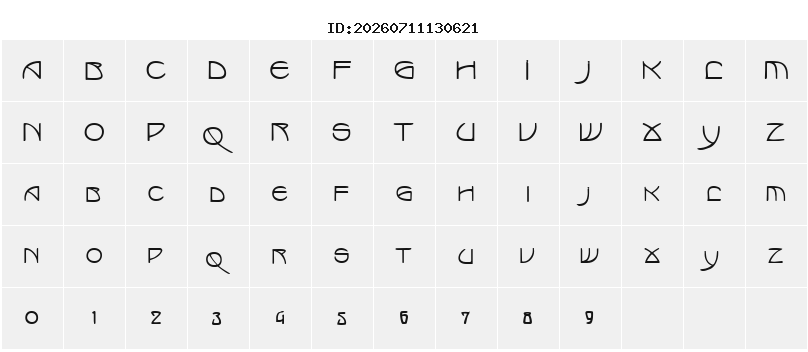
MarloweSemiBold Preview
• Font Name: MarloweSemiBold
• Full Font Name: MarloweSemiBold
About MarloweSemiBold.ttf
MarloweSemiBold.ttf is a modern, elegant sans-serif font designed for ultimate readability and visual harmony. Perfect for branding, headlines, web design, and print materials.